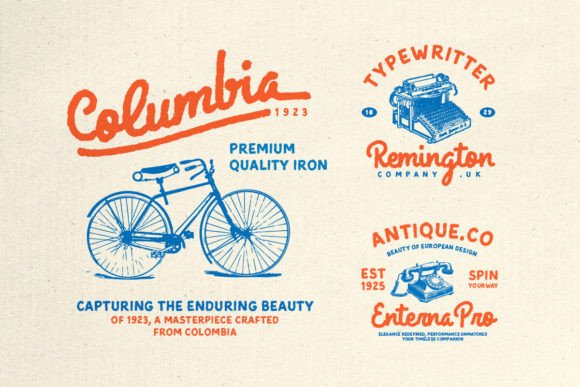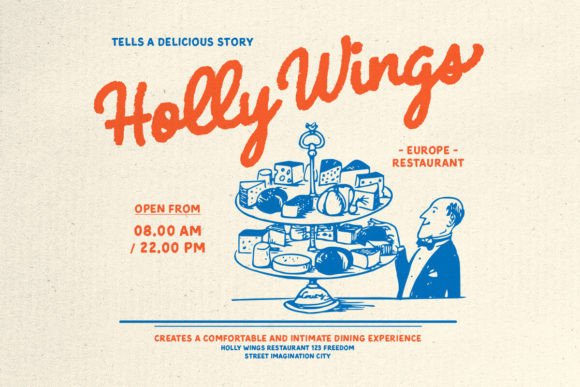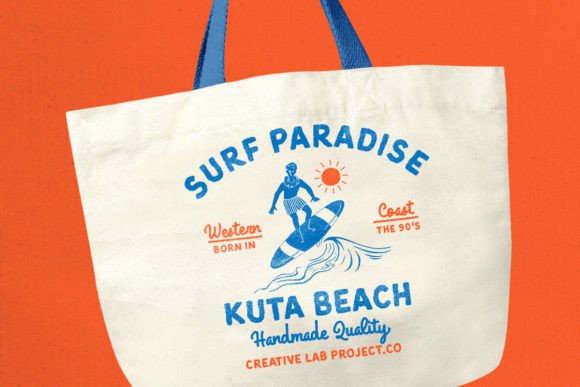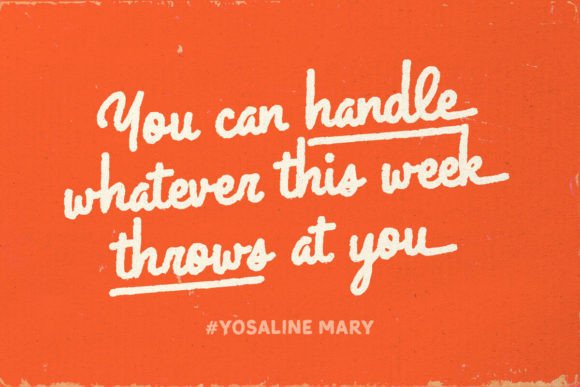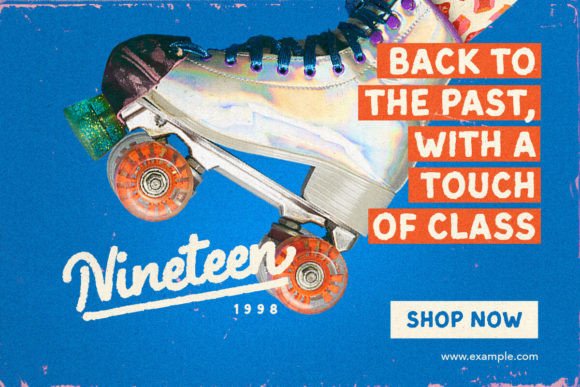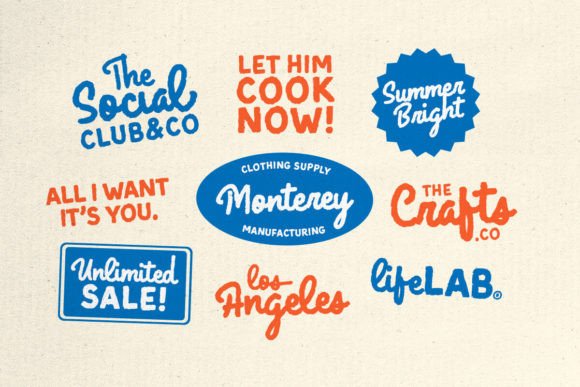
Introduction to Madliners Font
Have you ever been stuck in a creative rut, desperately searching for the perfect font to give your design project that extra oomph? I know I have. One day, while brainstorming ideas for a new outdoor adventure logo, I stumbled upon the Madliners Font duo – a handcrafted monoline font duo that combines the elegance of script with the ruggedness of sans serif. The result is a truly unique and eye-catching design resource that instantly elevates any creative project.
As a designer, you know how crucial it is to have access to high-quality fonts that can add a personal touch to your work. The Madliners Font duo delivers, with its rough and vintage looks that are perfect for outdoor or adventure logos, quotes, or any other project that requires a natural and handmade feel.
Key Features of Madliners Font
- High-quality design resource suitable for various creative projects.
- Unique characteristics include elegant, cursive script and stylish lettering.
- Perfect for designers, artists, and writers seeking a sophisticated and creative design element.
Honest Review: Madliners Font
I recently came across the Madliners Font and decided to give it a try for my current design project. As a designer, I appreciate the abundance of free download design resources available online, but not all of them meet my expectations.
Here are some points that work well for the Madliners Font:
- It has a unique, elegant style that can be used for a variety of creative projects.
- The font may not be suitable for projects that require a bold, dramatic look.
- The character set is not as extensive as some other fonts I’ve used.
Overall, I’d say the Madliners Font is a solid choice for designers who want a high-quality font for their creative projects. While it may have some limitations, its unique style and free download availability make it a great resource to have in your design toolkit.